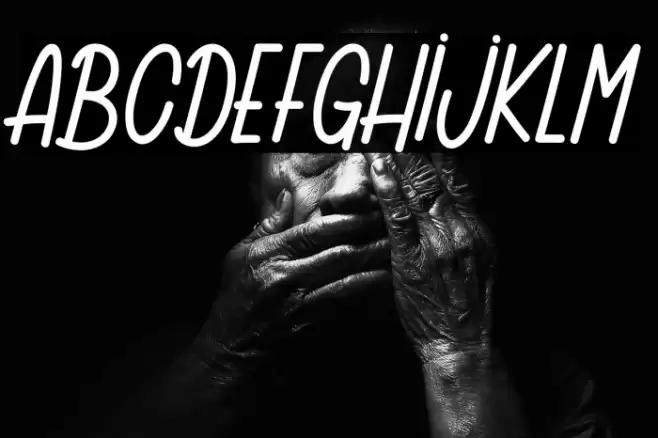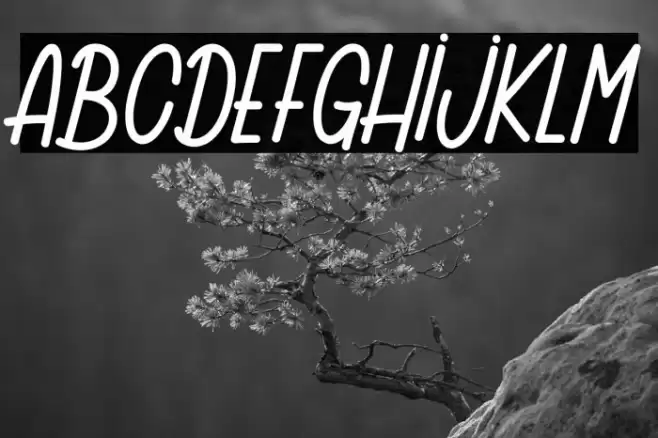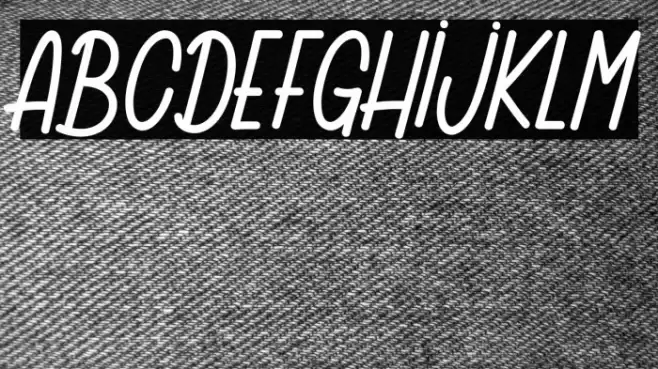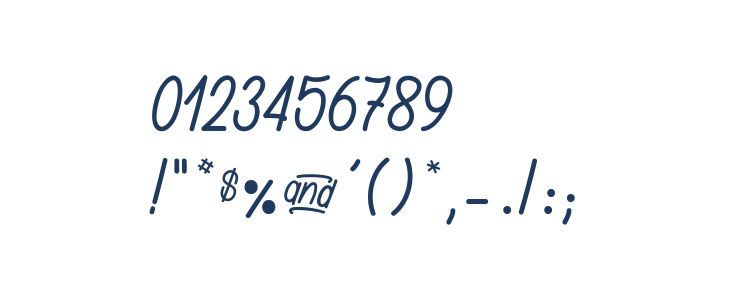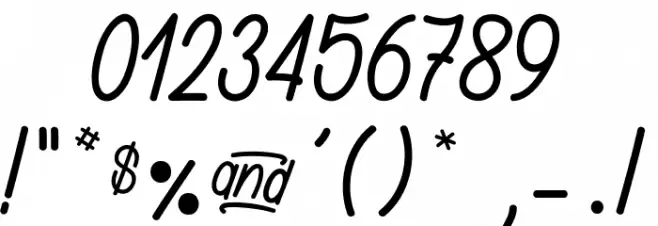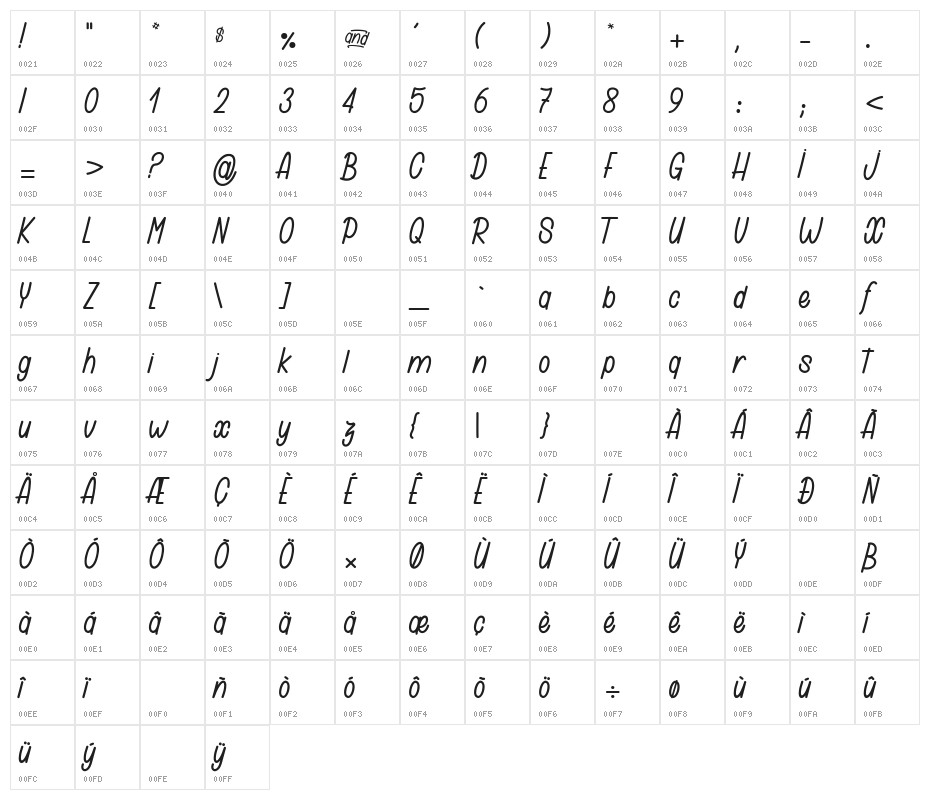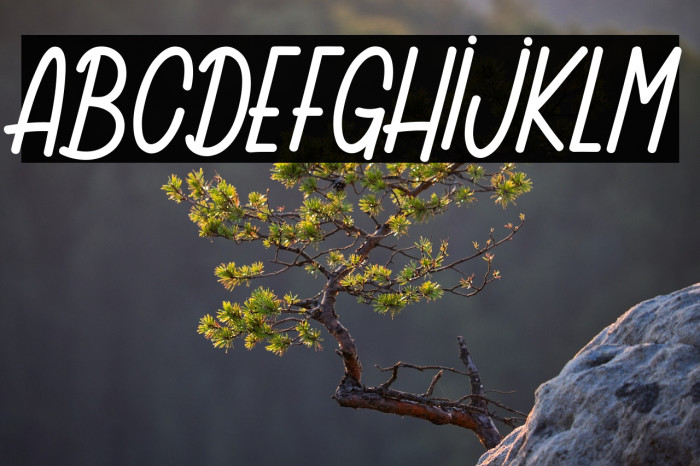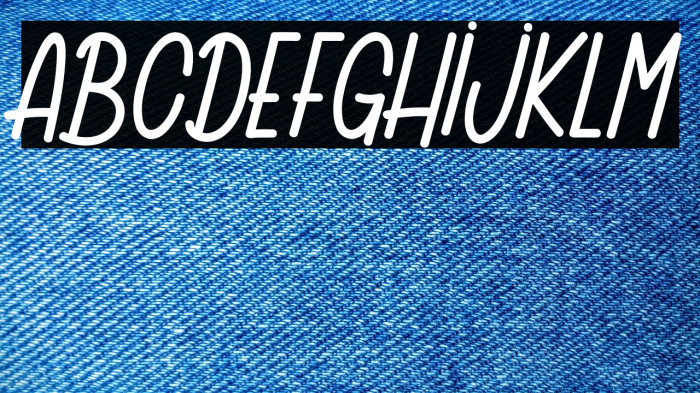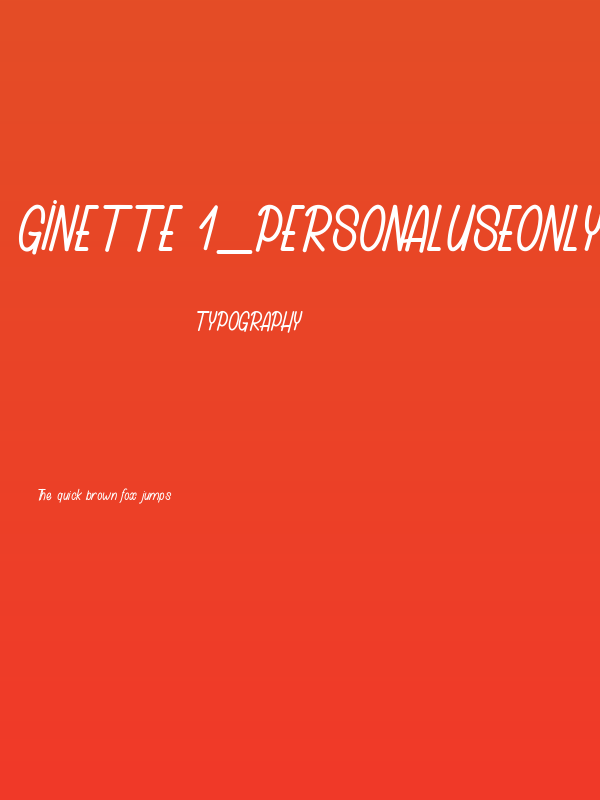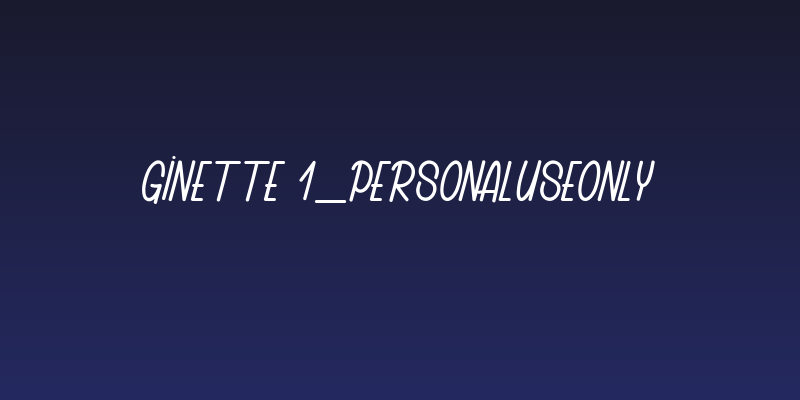
Ginette 1_PersonalUseOnly Font
Ginette 1_PersonalUseOnly Description
This font features a playful and dynamic script style, characterized by its smooth, flowing lines and slightly slanted orientation. The uppercase letters are bold and prominent, while the lowercase letters maintain a consistent rhythm with a touch of elegance. The numerals are clear and easy to read, complementing the overall style. Special characters are creatively designed, adding to the font's unique personality. The font's design is both modern and approachable, making it suitable for a variety of creative projects.
A playful and dynamic script font with smooth, flowing lines from Uncategorized fonts.
- Font: Ginette 1_PersonalUseOnly
- Proposed Projects: Ideal for greeting cards, invitations, branding, and social media graphics.
- Use Case: Logos, Headlines, Decorative text